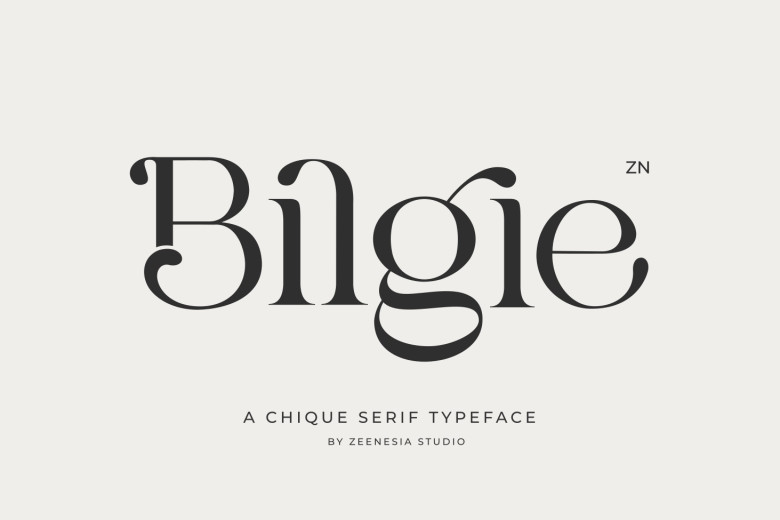
Bilgie Font
Bilgie is an elegant serif-style font. A timeless classic and modern combination, Bilgie creates an eye-catching design. Versatile yet elegant in appearance, Bilgie works great large. Perfect for projects requiring an element of enjoyment – editorial projects, logo, design Web font brand clothing, branding, packaging, magazines, headers or simply as text overlay for images or logos.
Bilgie Serif Font